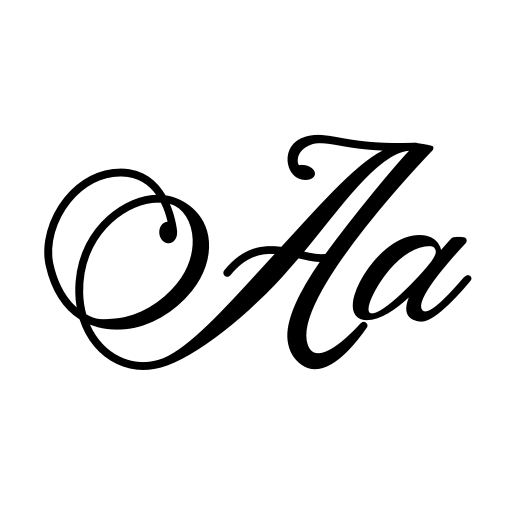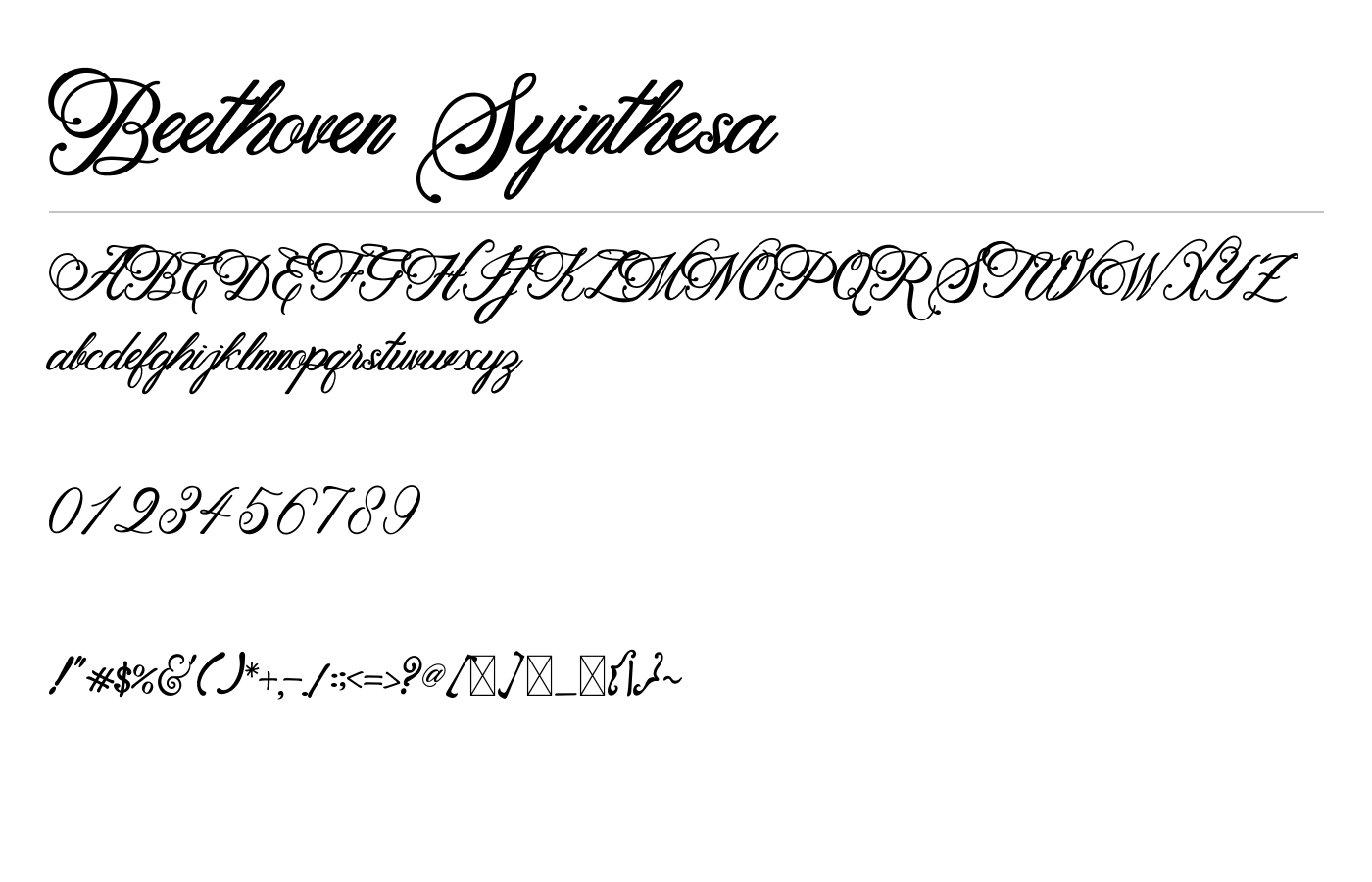
Beethoven Synhtesa is an elegant script font with graceful, flowing letterforms that evoke a classic, refined feel. Its thin strokes and intricate curves give it a sophisticated, vintage charm perfect for luxury branding, wedding invitations, and high-end editorial designs. This font shines in headlines and decorative uses where a touch of timeless beauty is desired.
Beethoven Syinthesa Font
About Beethoven Syinthesa Font
| Font family | Beethoven Syinthesa Font |